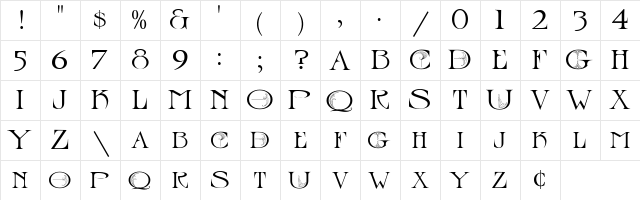
LHF Strong Nouveau Regular Free Font
LHF Strong Nouveau Regular
LHF Strong Nouveau Family
Design Context for LHF Strong Nouveau
LHF Strong Nouveau is a composed and adaptable typeface that performs quietly and consistently across a wide range of design contexts.